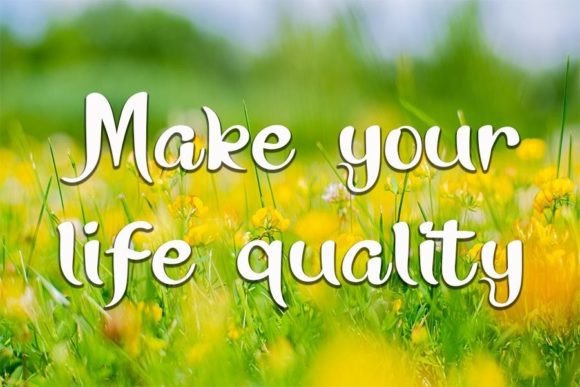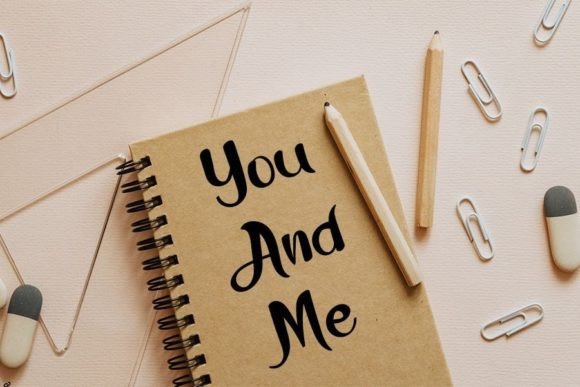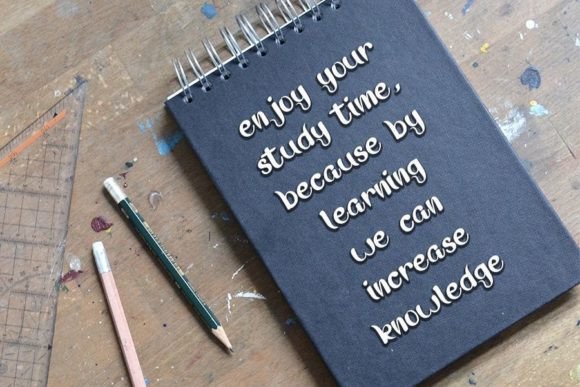
Introduction to Handmade Scratch Font
Handmade Scratch is a friendly handwritten font, carefully designed to become a true favorite.
It maintains its classy calligraphic influences while feeling contemporary and fresh Add it to your creative projects and make them outstanding.
Key Features of Handmade Scratch Font